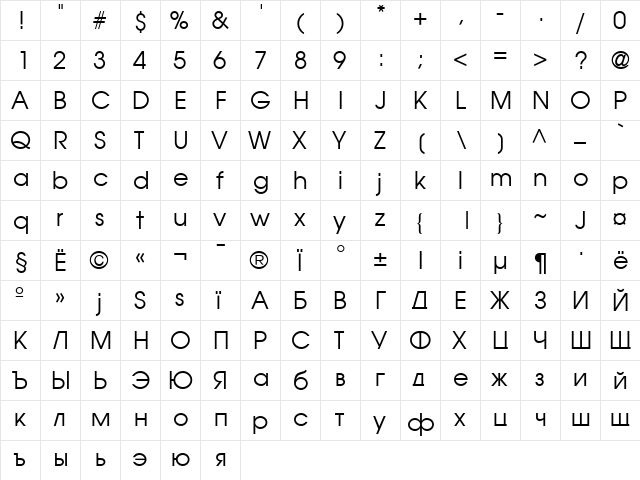
AGAvantGardeCyr Book
AGAvantGardeCyr is a composed and adaptable typeface that performs quietly and consistently across a wide range of design contexts.